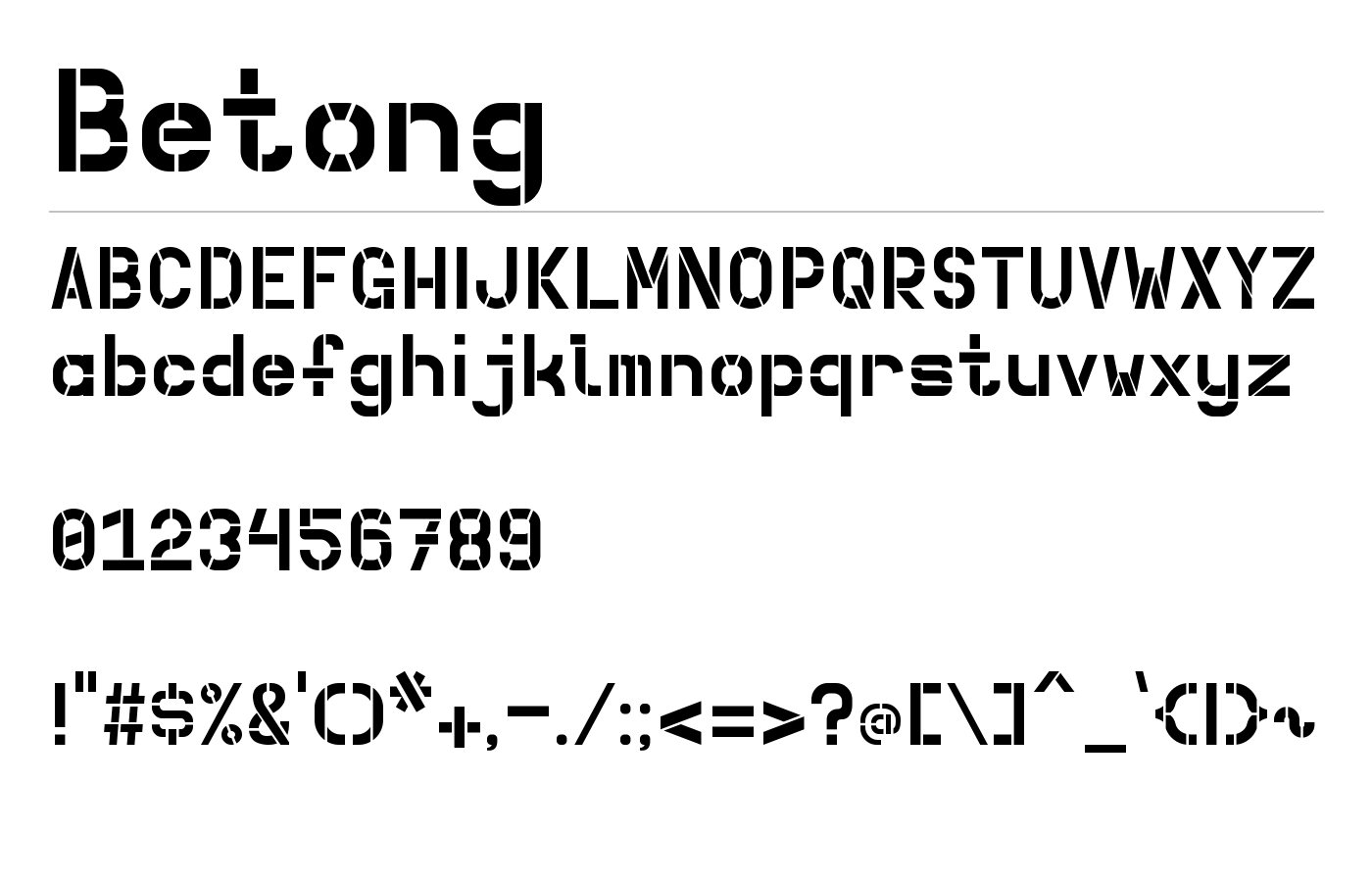
Betong is a bold, stencil-style sans serif font characterized by its strong geometric shapes and distinctive cut-out sections, which give it an industrial and modern feel. Its regular width, medium x-height, and consistent stroke contrast make it eye-catching and highly legible, perfect for impactful headlines, posters, and branding that aim to convey strength and contemporary style. This font suits creative projects that require a bold statement with a touch of urban and mechanical personality.
Betong Font